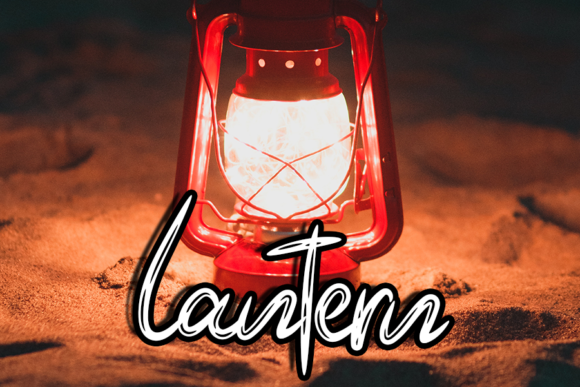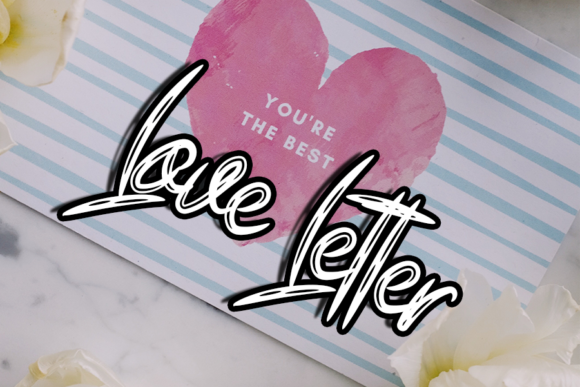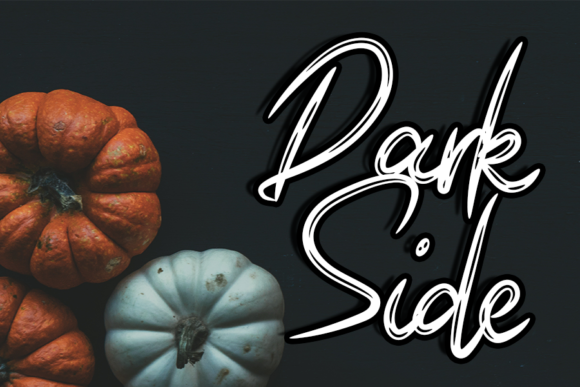
Love at First Sight: The Charm of Big Valentine Font
Who hasn’t been captivated by the handwritten notes and love letters of a loved one? There’s something special about the imperfections and uniqueness of a handwritten message that makes it feel truly personal. For designers, capturing that same warmth and character in their projects can be a challenge – but what if you had the perfect tool to help you achieve that?
Enter Big Valentine Font, a friendly script font designed to add a handwritten touch to any design project. With its playful, cursive lines, Big Valentine Font is perfect for creating invitations, greeting cards, and other materials that require a touch of personality and love.
Key Features of Big Valentine Font
- Unique Characteristics: Big Valentine Font features a distinctive, playful, and romantic design, making it perfect for Valentine’s Day and other love-themed celebrations.
- Font Style: The font is a script font with a bold, cursive design, adding a touch of elegance and sophistication to any text.
Big Valentine Font Review
Overall, I’m impressed with the Big Valentine Font. Here’s what I think works well: ✨
- The bold, playful design perfectly captures the essence of Valentine’s Day.
- The unique character shapes and flourishes add a touch of whimsy and romance.
- The font is highly customizable, making it perfect for designers who want to add a personal touch.
However, there are some limitations: ⚠️
- The font may be too bold for some designs, making it hard to read in smaller sizes.
- The unique character shapes can make it difficult to use in more formal or professional contexts.
- The font may not be ideal for longer blocks of text, as it can be overwhelming.
Overall, I’d give the Big Valentine Font 4 out of 5 stars. While it’s perfect for Valentine’s Day-themed designs or playful, romantic projects, it may not be the best choice for more formal or professional designs. However, its unique design and high customizability make it a great option for designers who want to add a personal touch to their projects.
Big Valentine Font is ideal for creating eye-catching headlines, titles, and social media graphics. To get the most out of it, use it sparingly and in bold, contrasting colors to make your design stand out.